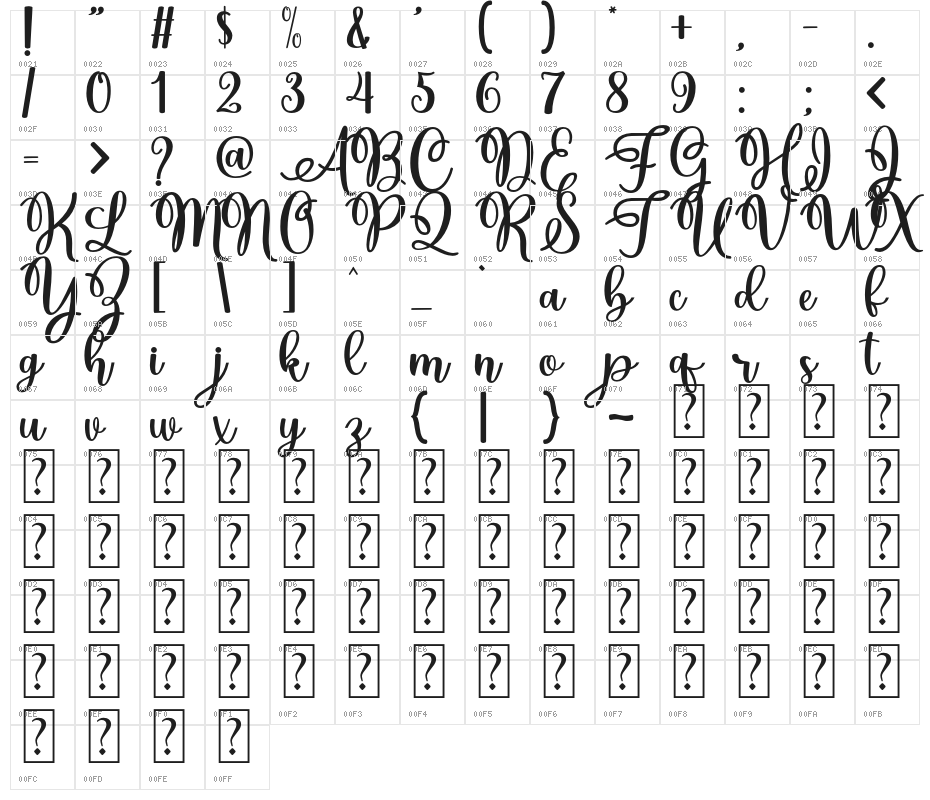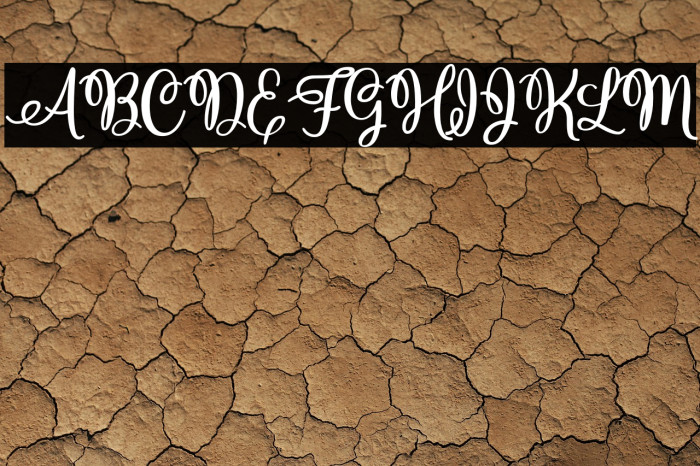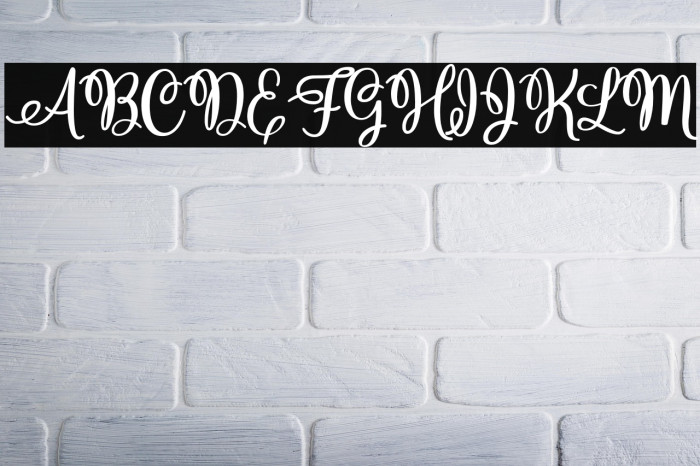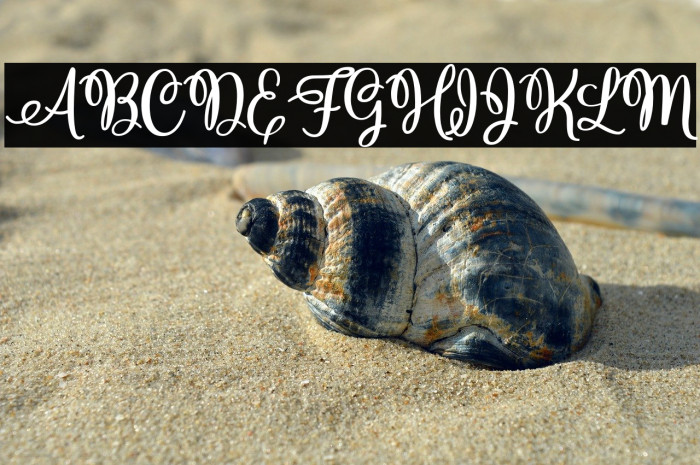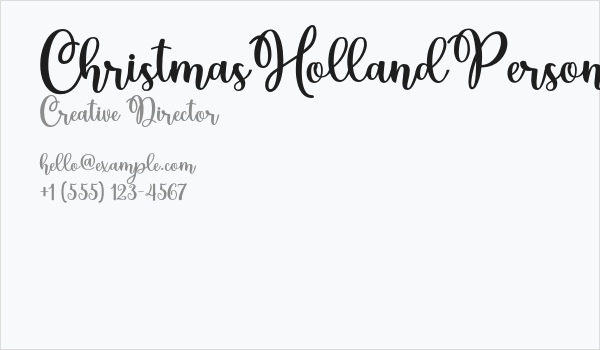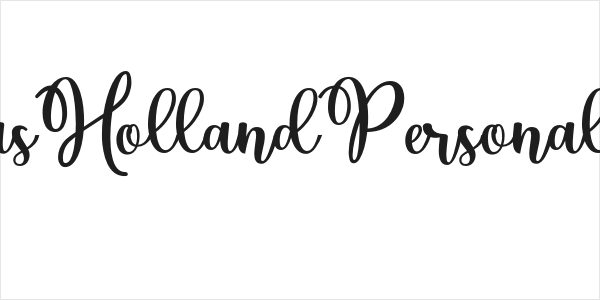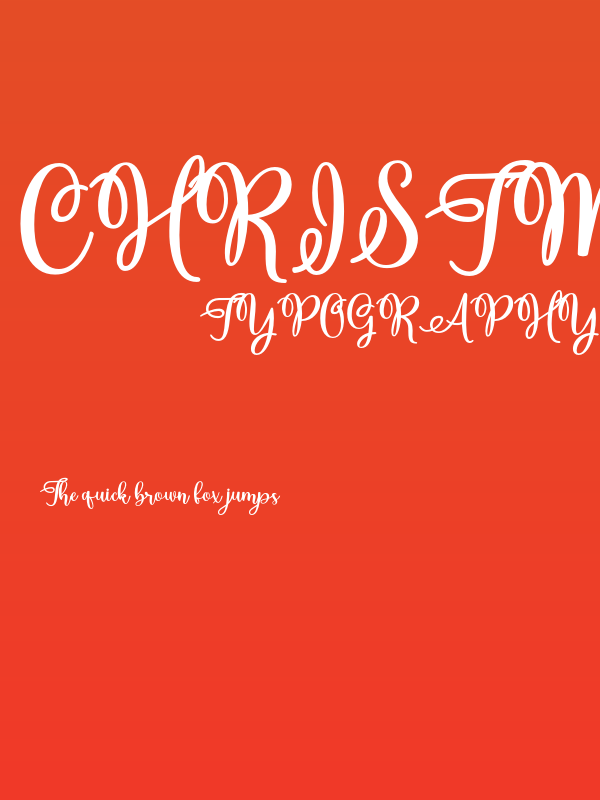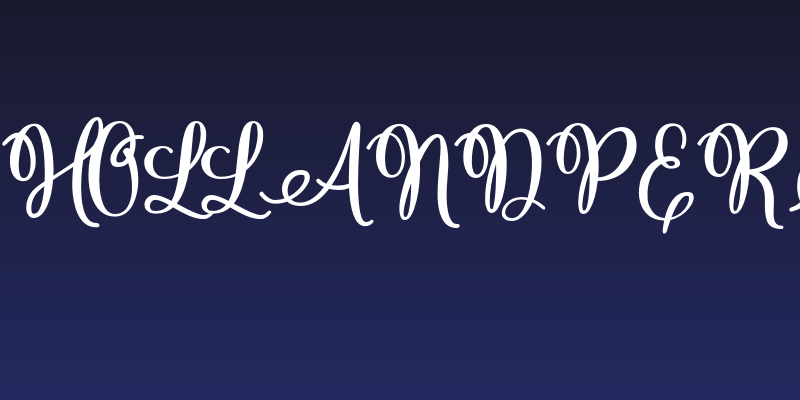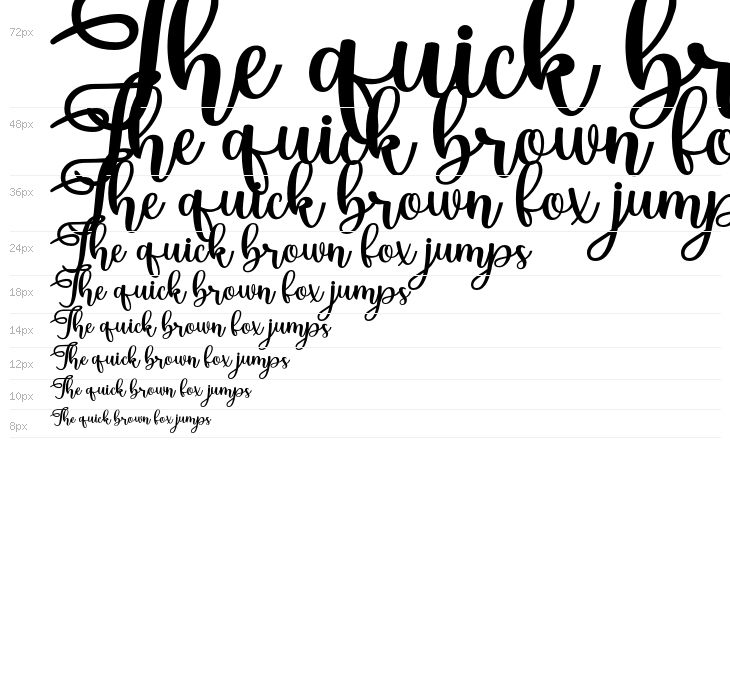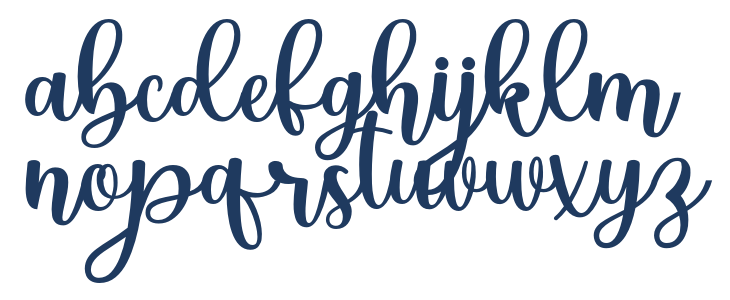
ChristmasHollandPersonalUse-R Font
ChristmasHollandPersonalUse-R Description
This font features a whimsical and festive script style, characterized by its flowing, cursive letters that evoke a sense of elegance and playfulness. The uppercase letters are ornate with flourishes, while the lowercase letters maintain a consistent, smooth flow. The numerals are bold and slightly rounded, complementing the overall style. Special characters are creatively integrated, adding to the font's decorative appeal. This font is ideal for holiday-themed projects, invitations, and greeting cards, where a touch of personality and charm is desired.
| Use Case | Logos, Invitations, Decorative Text |
| Proposed Projects | Ideal for holiday cards, invitations, festive banners, and decorative signage. |